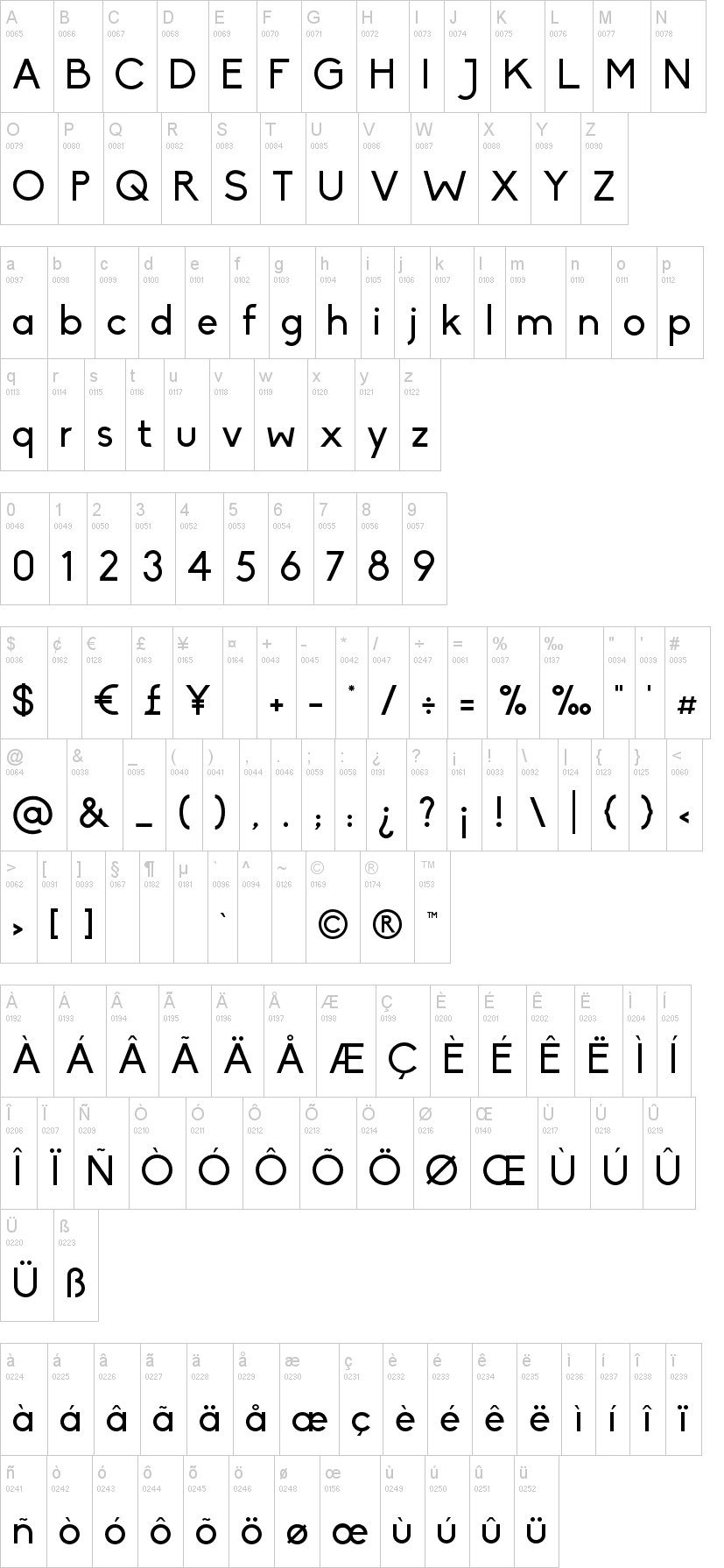
Шрифт Biko
Now also LIGHT !!! Biko is a geometric sans serif with a strong and yet friendly character. The font is perfect for display, copy text and logos. The name is a tribute to Steve Biko: a South African anti-apartheid activist.